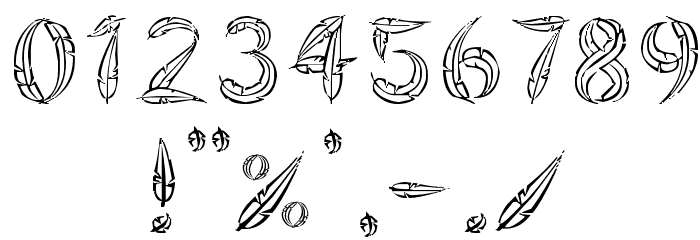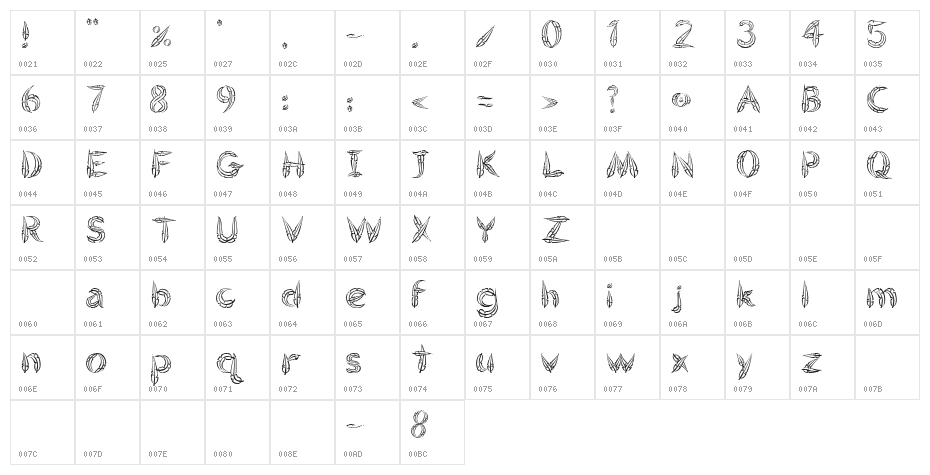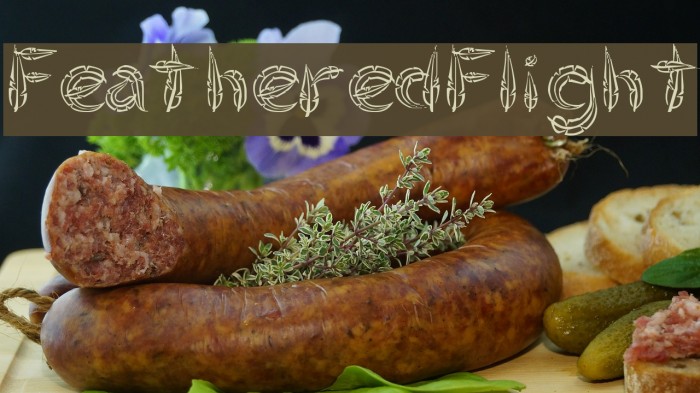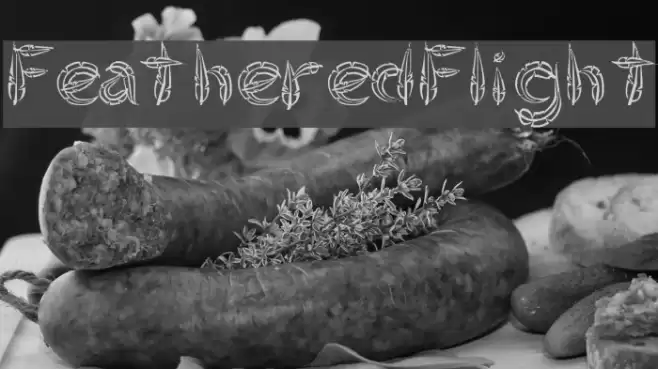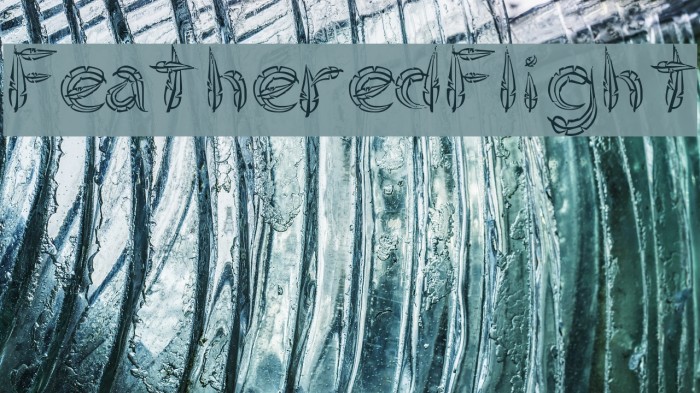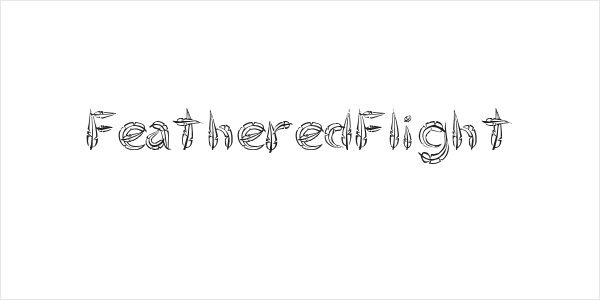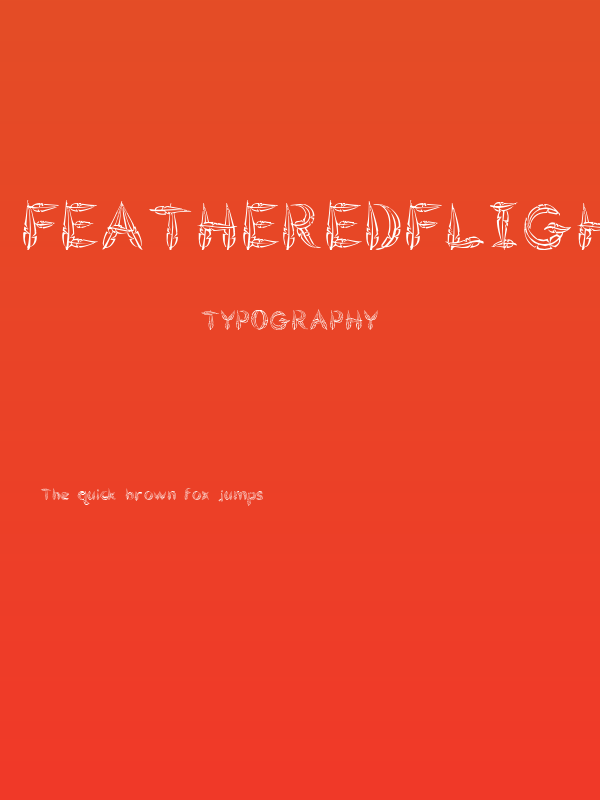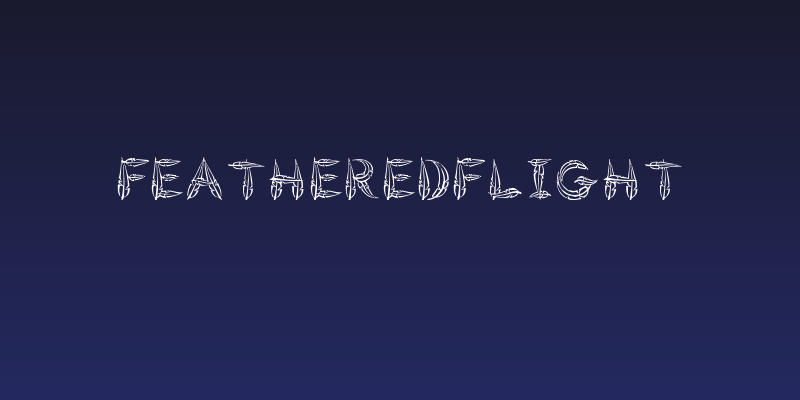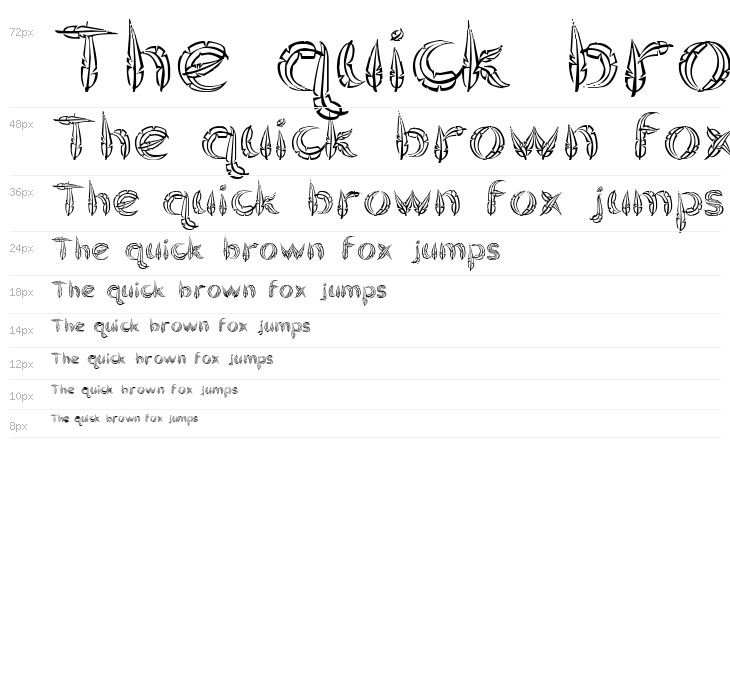
FeatheredFlight Font
FeatheredFlight Description
This font features a unique design where each character is intricately crafted to resemble feathers. The strokes are detailed and give an impression of lightness and elegance, reminiscent of bird feathers. The uppercase and lowercase letters maintain a consistent theme, with curves and lines that mimic the natural flow of feathers. Numbers and special characters are also designed with the same feather motif, ensuring a cohesive look across all elements. This font is highly decorative and artistic, making it stand out with its distinct style.
| Proposed Projects | Ideal for nature-themed projects, artistic designs, invitations, and branding that requires a unique and elegant touch. |